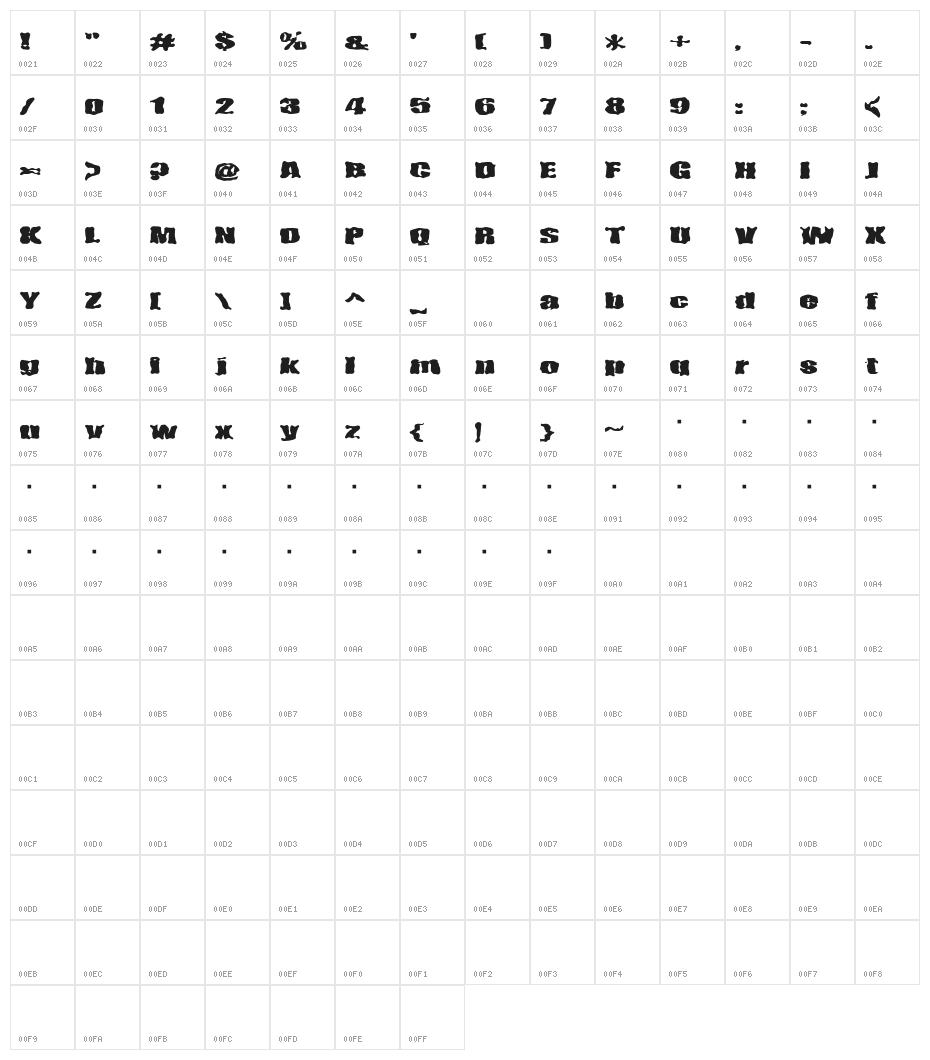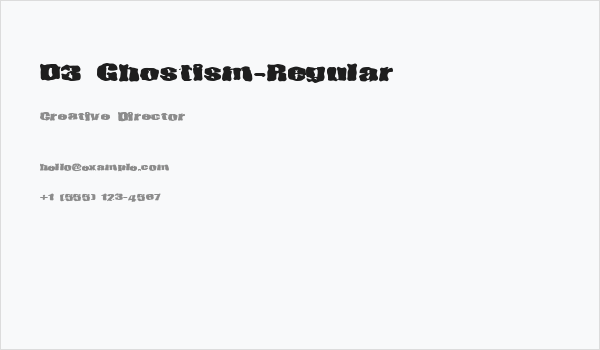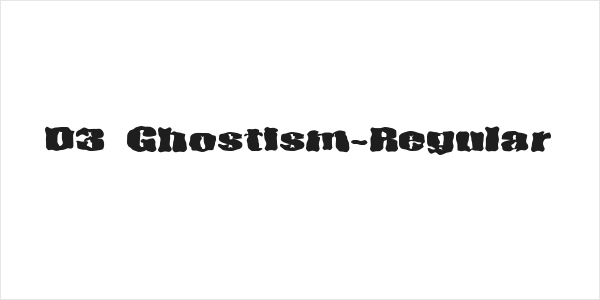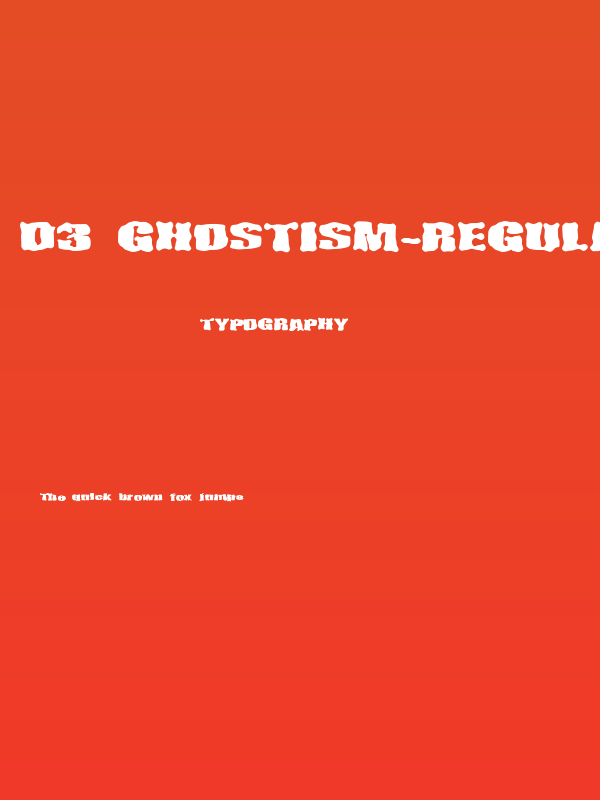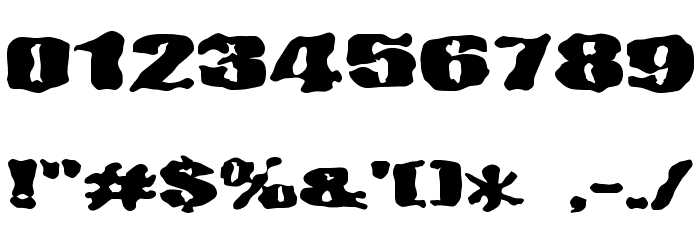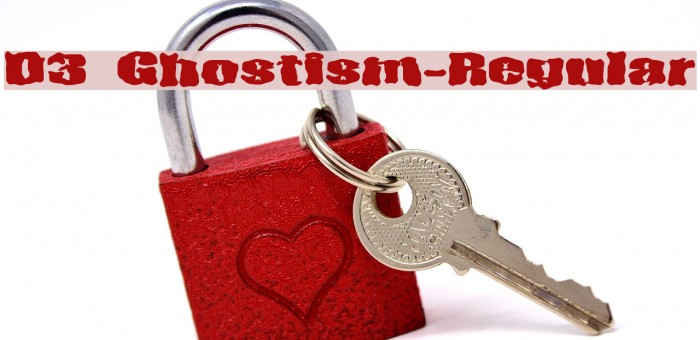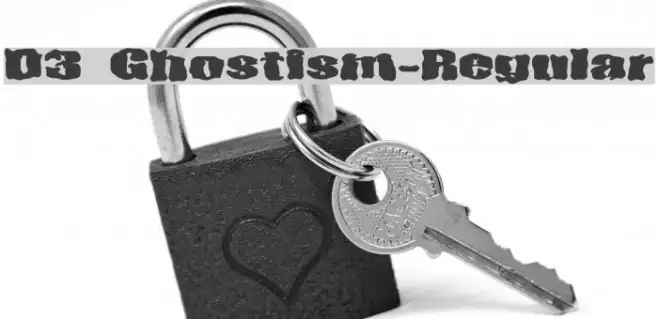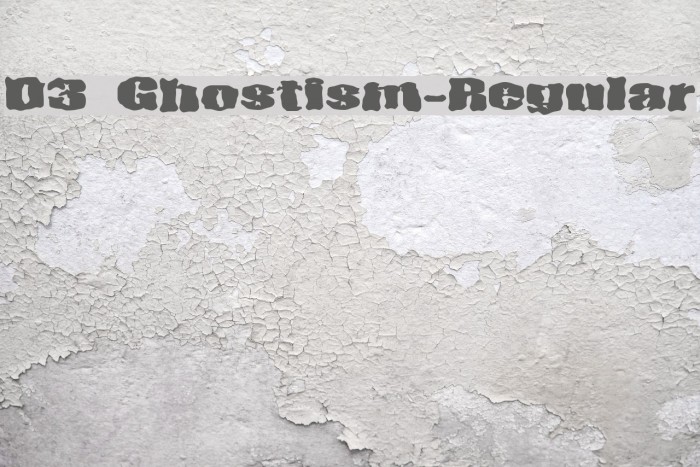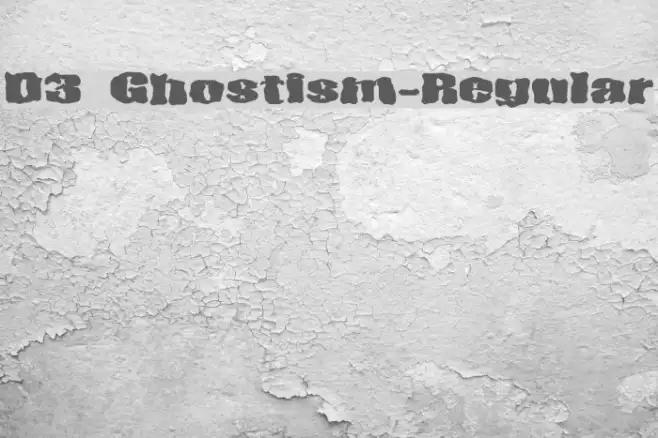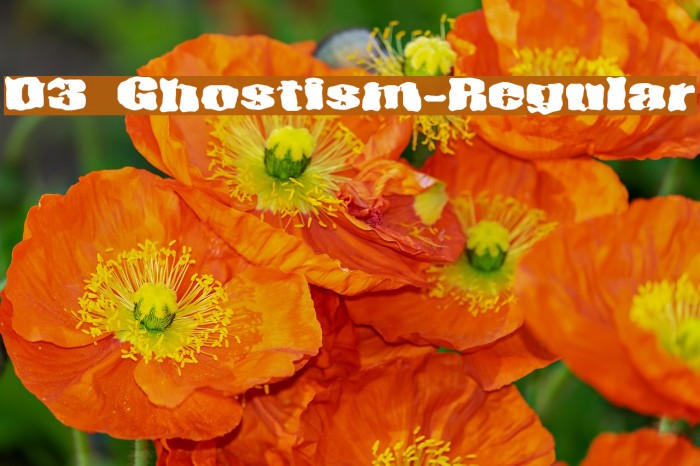
D3 Ghostism-Regular Font
D3 Ghostism-Regular Description
This font features a bold and dramatic style with a unique, ghostly appearance. The characters are heavily stylized with irregular, jagged edges that give them a haunting, ethereal quality. The uppercase and lowercase letters maintain a consistent weight, creating a cohesive look across the alphabet. Numbers and special characters follow the same design principles, ensuring uniformity throughout. The font's distinct design makes it stand out, capturing attention with its eerie, otherworldly vibe.
| Proposed Projects | Ideal for Halloween-themed designs, spooky event posters, horror movie titles, and haunted house branding. |